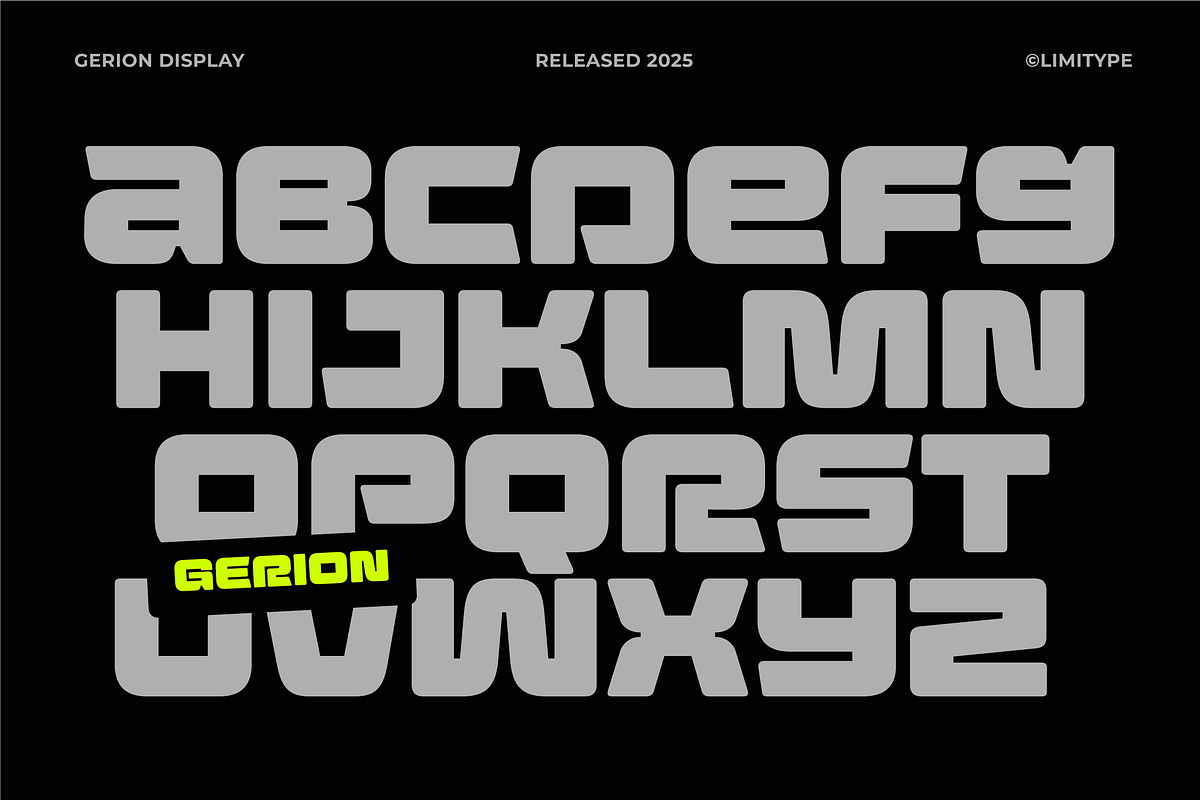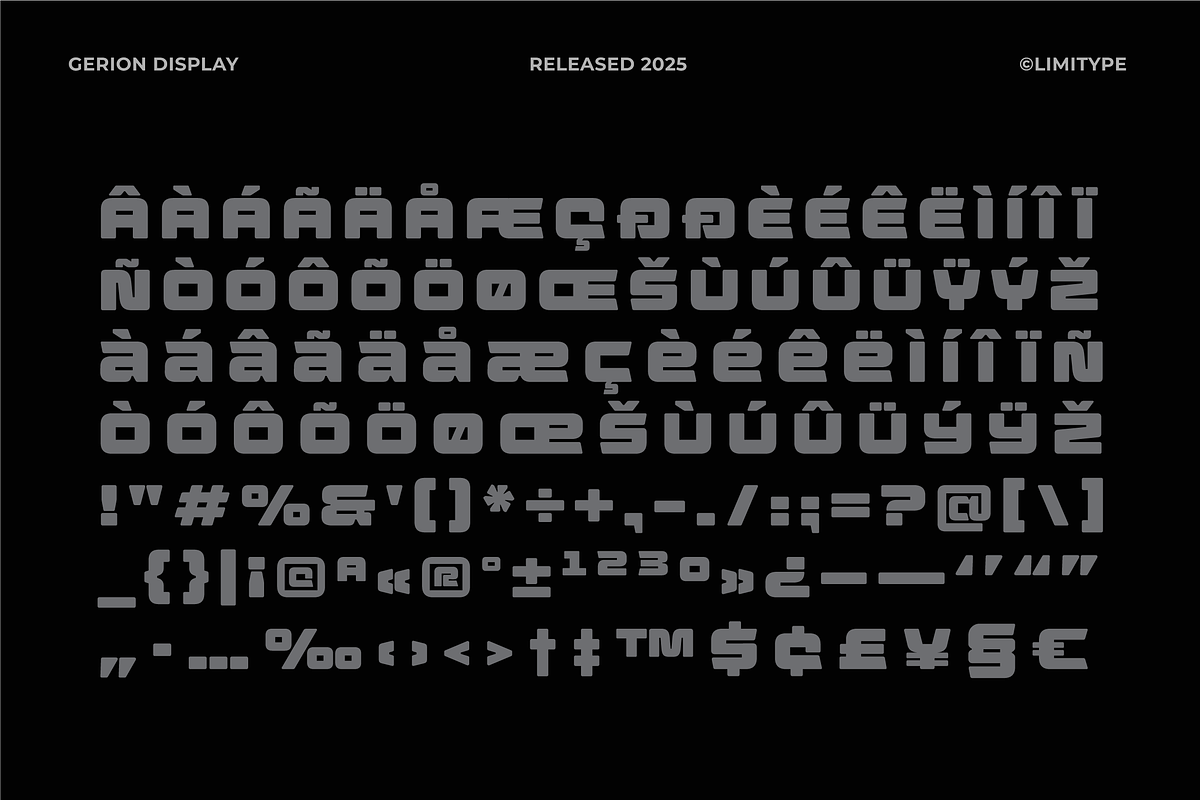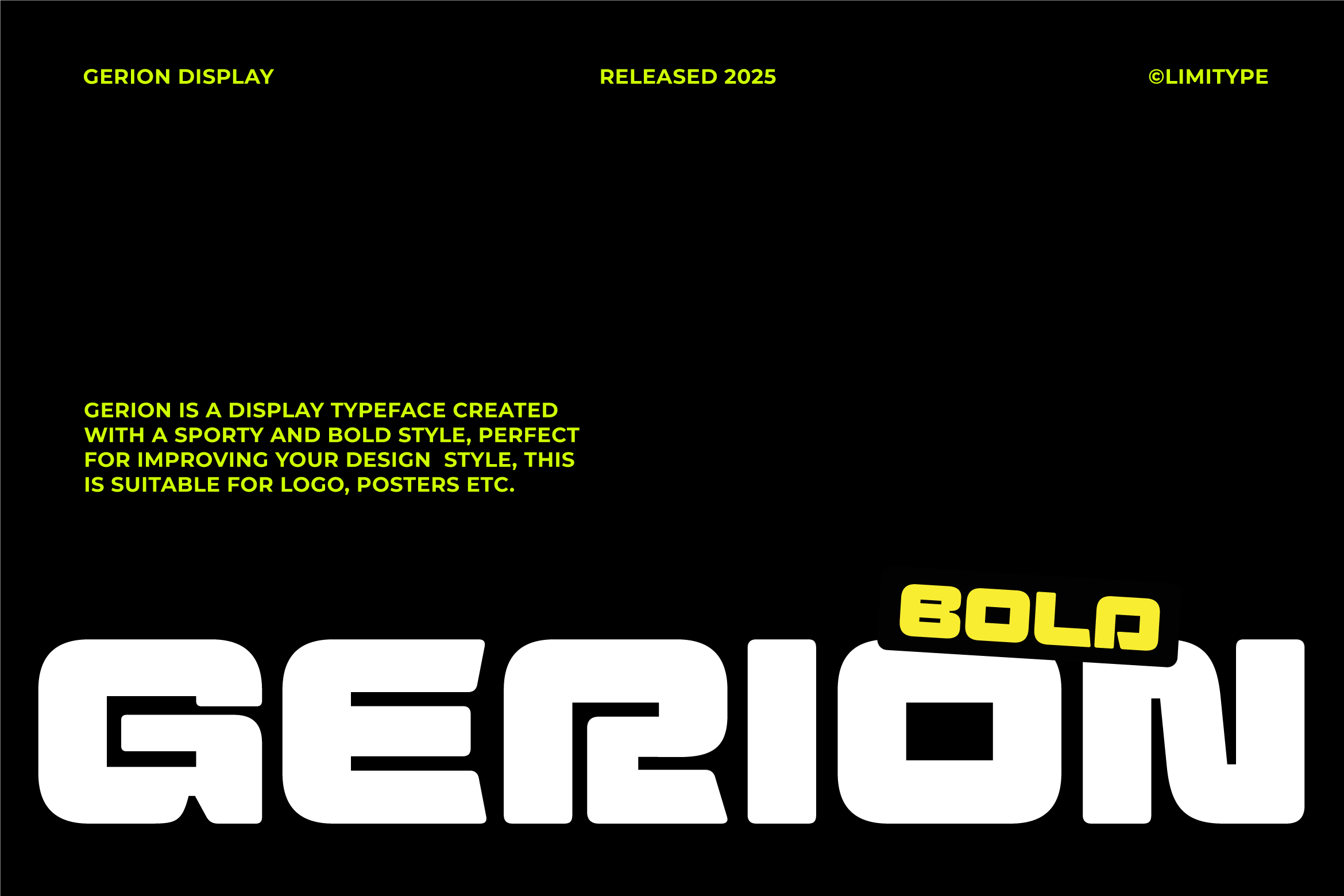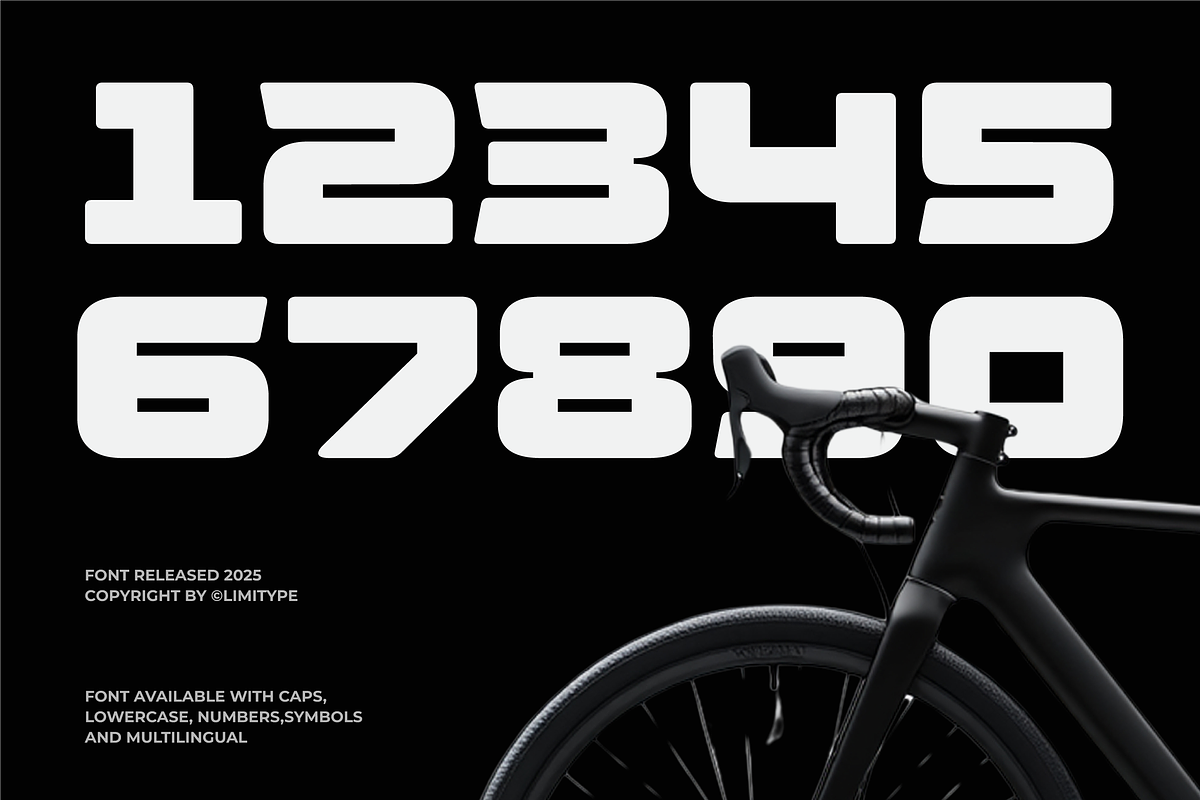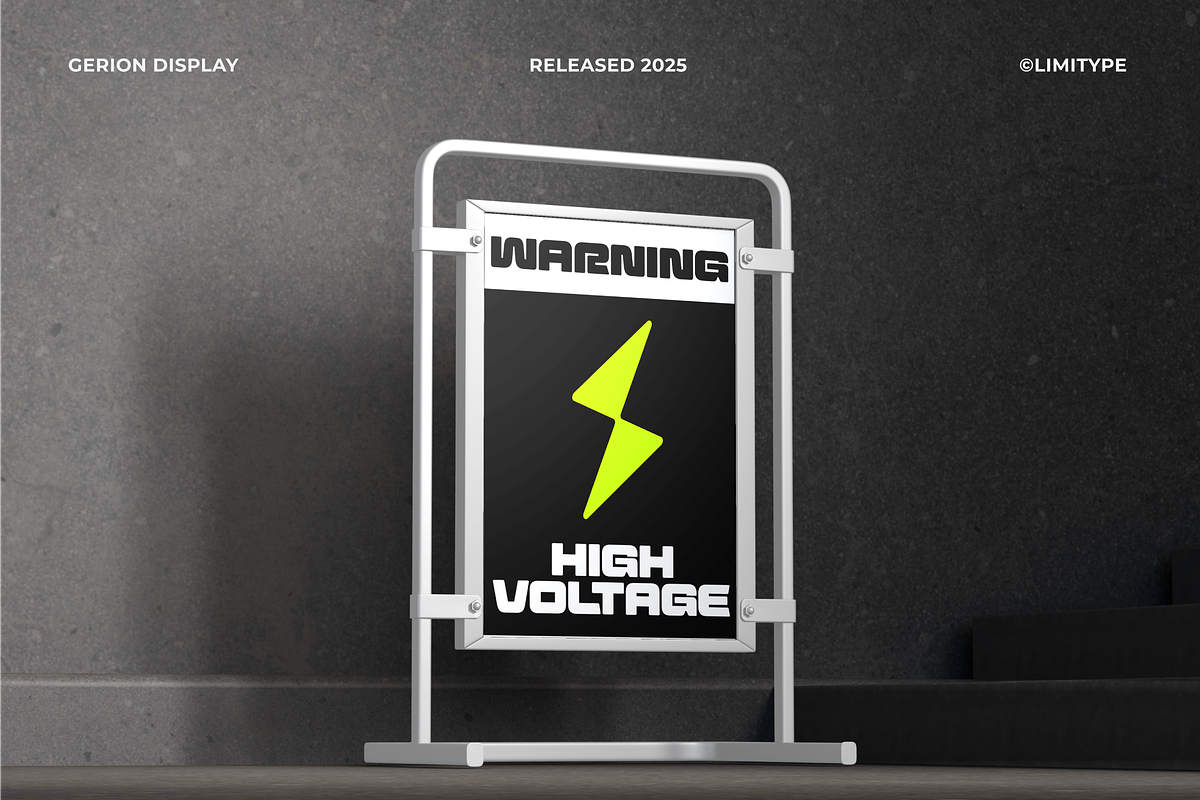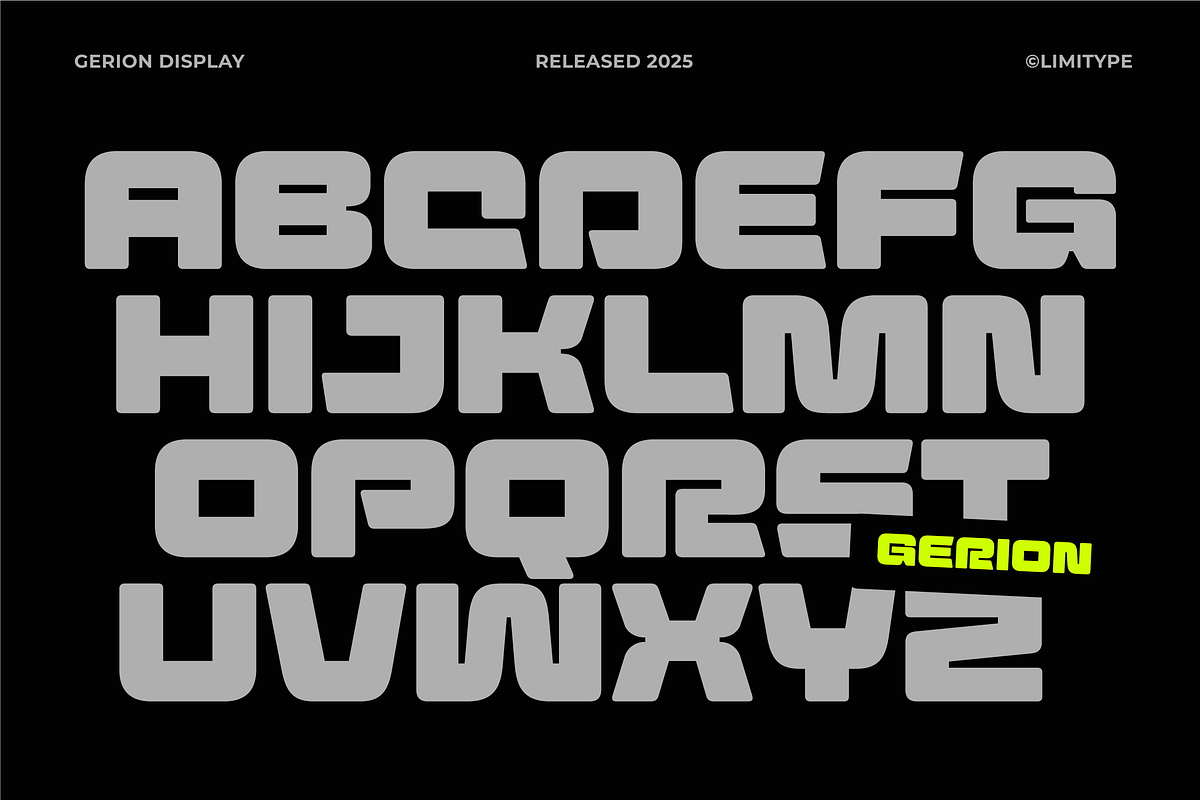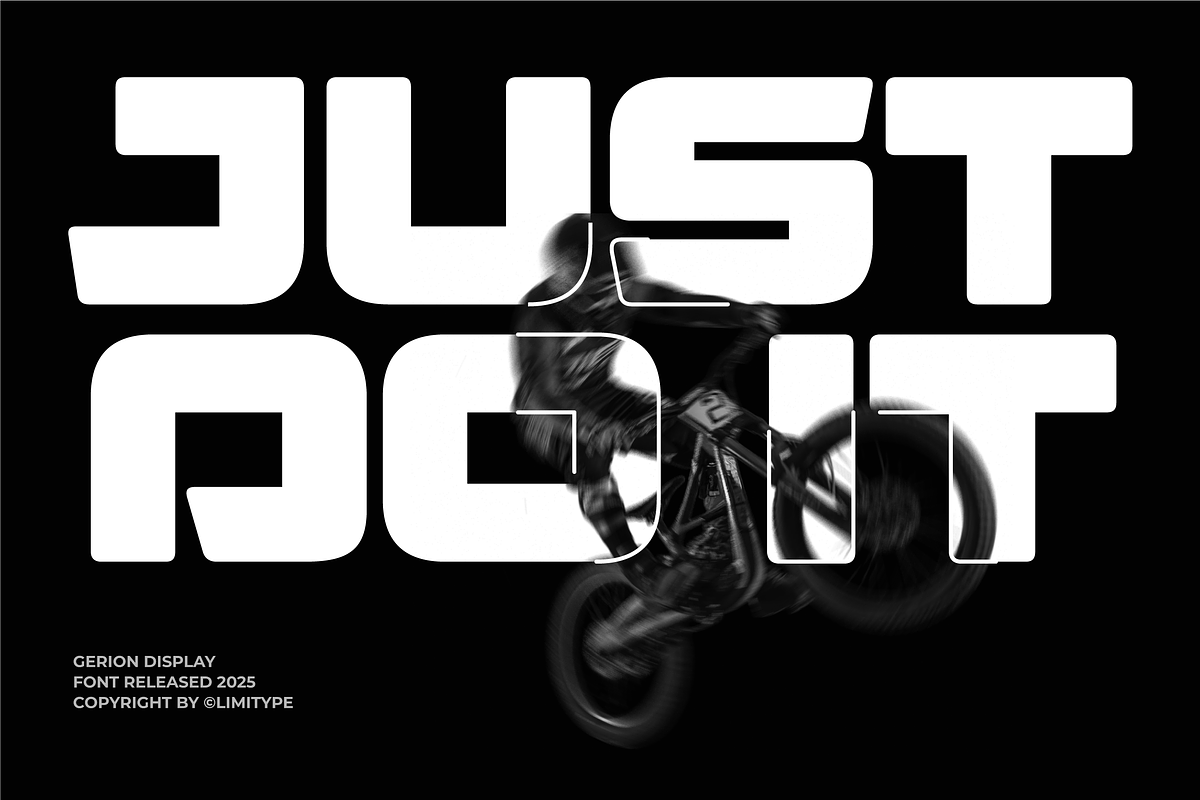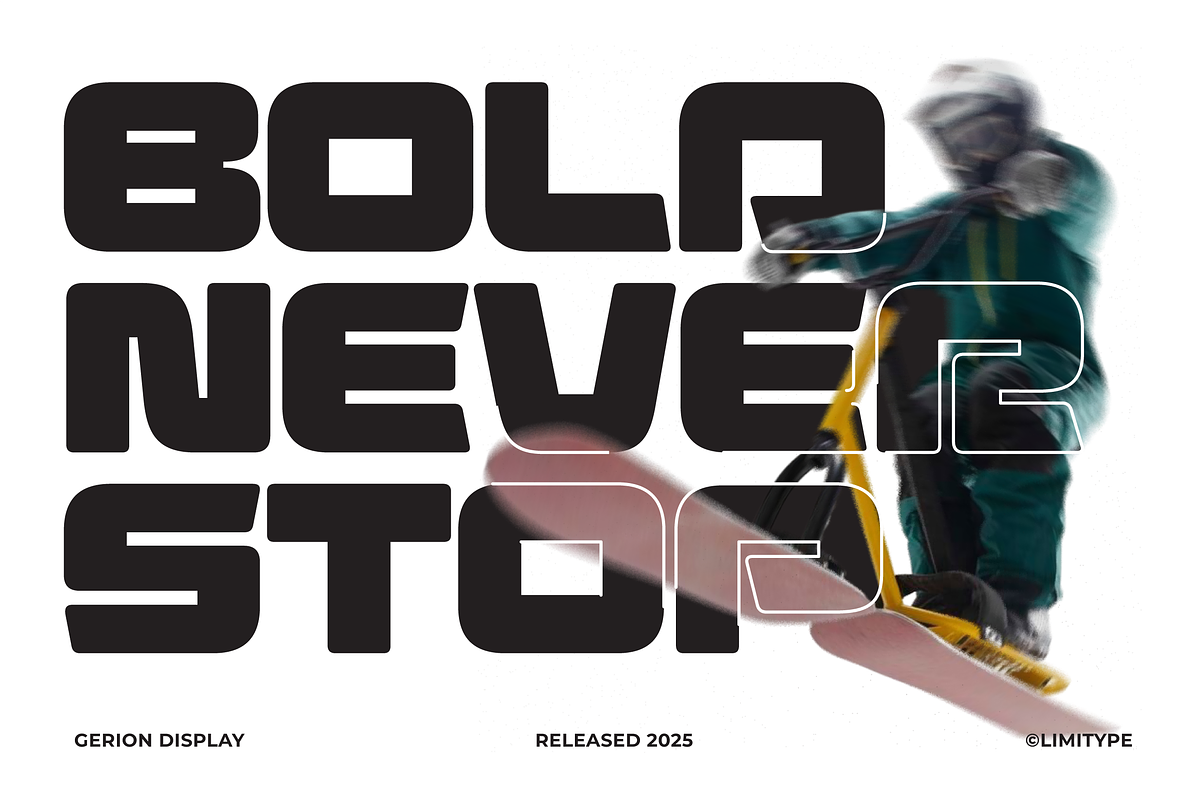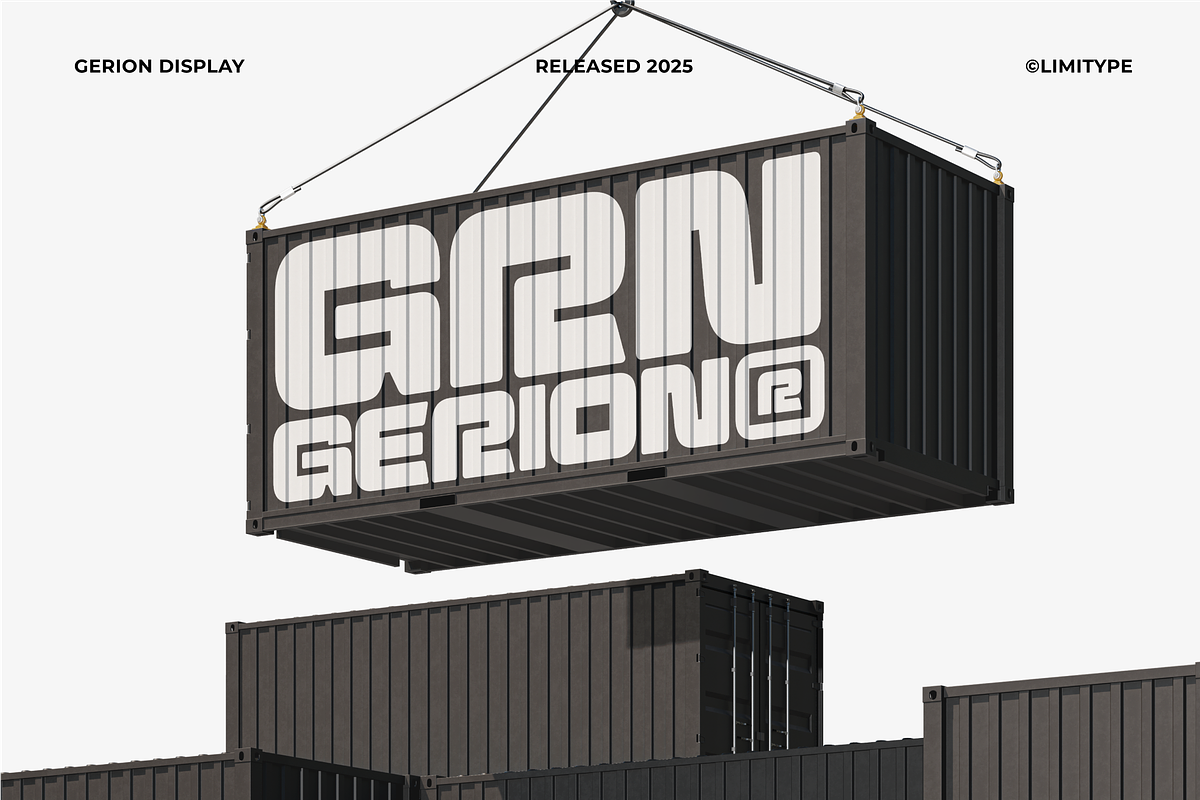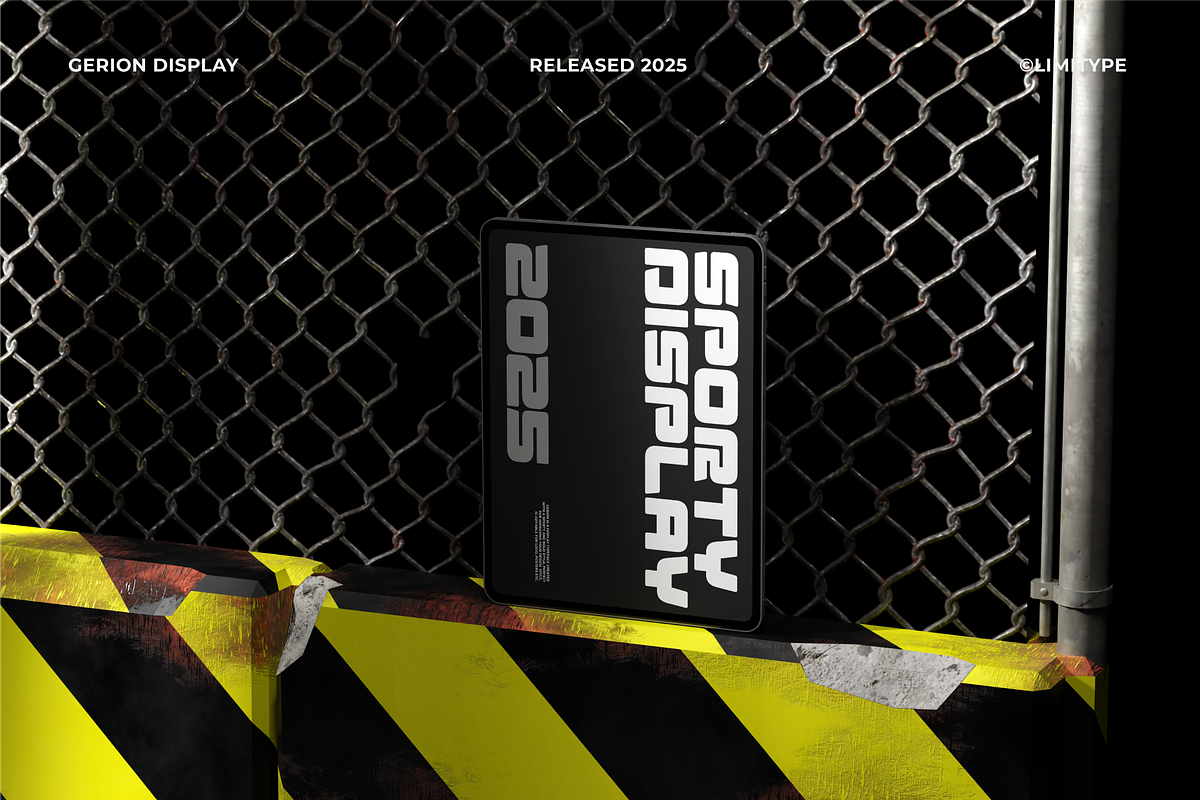
Gerion - Bold Font
Gerion is a bold modern font with a dynamic, futuristic edge. Rounded letterforms give it a strong, confident, and progressive character. Ideal for headlines, branding, posters, and digital campaigns.